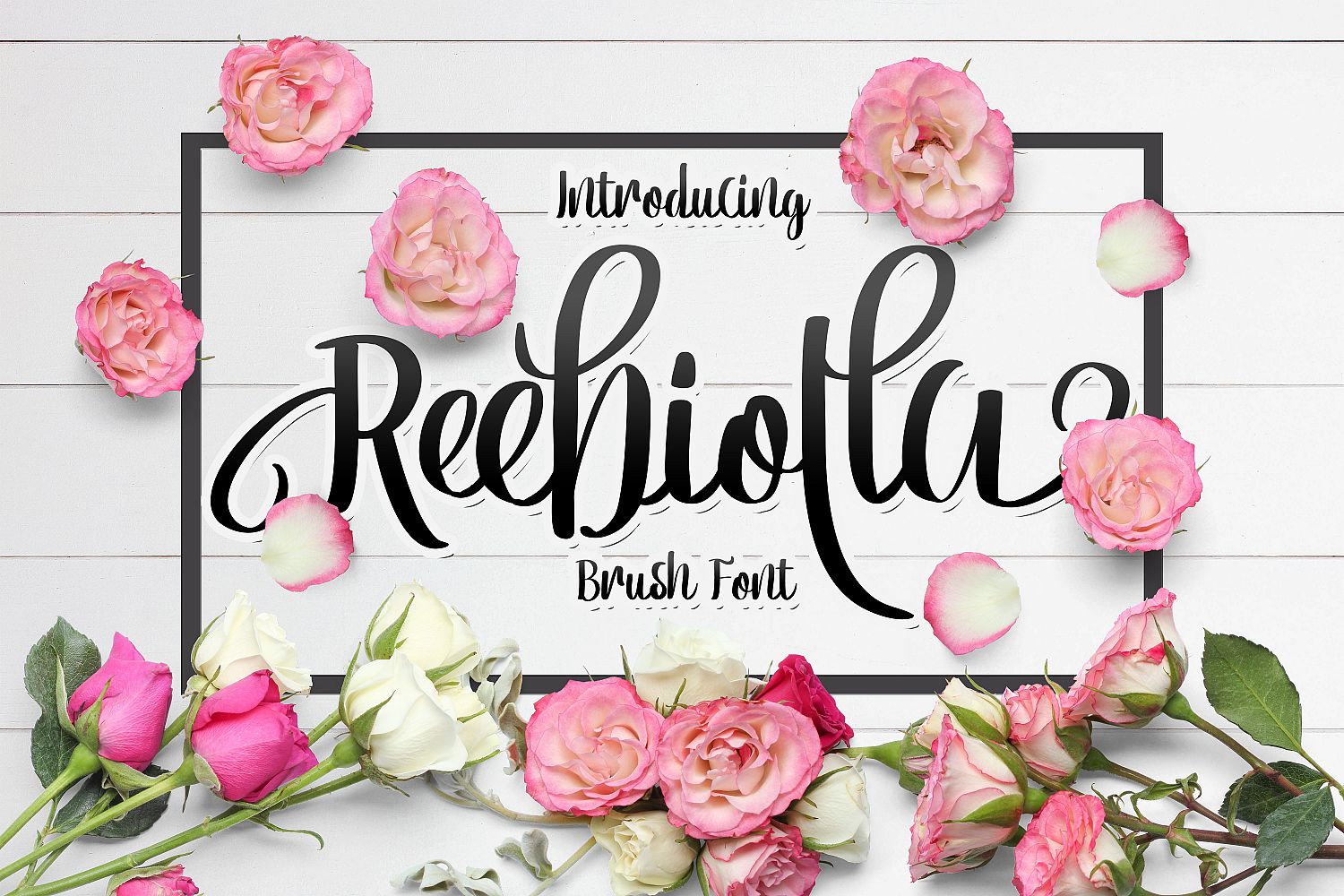
Reebiolla Brush Font
Reebiolla Brush Font is our latest product
This is very suitable for beautiful font for your design artwork, like wedding invitation, card name, brochure, and etc.
Features:
- Rough and Clean Version
- Regular & Italic
- Stylistic Alternate
- Multiple Language Support